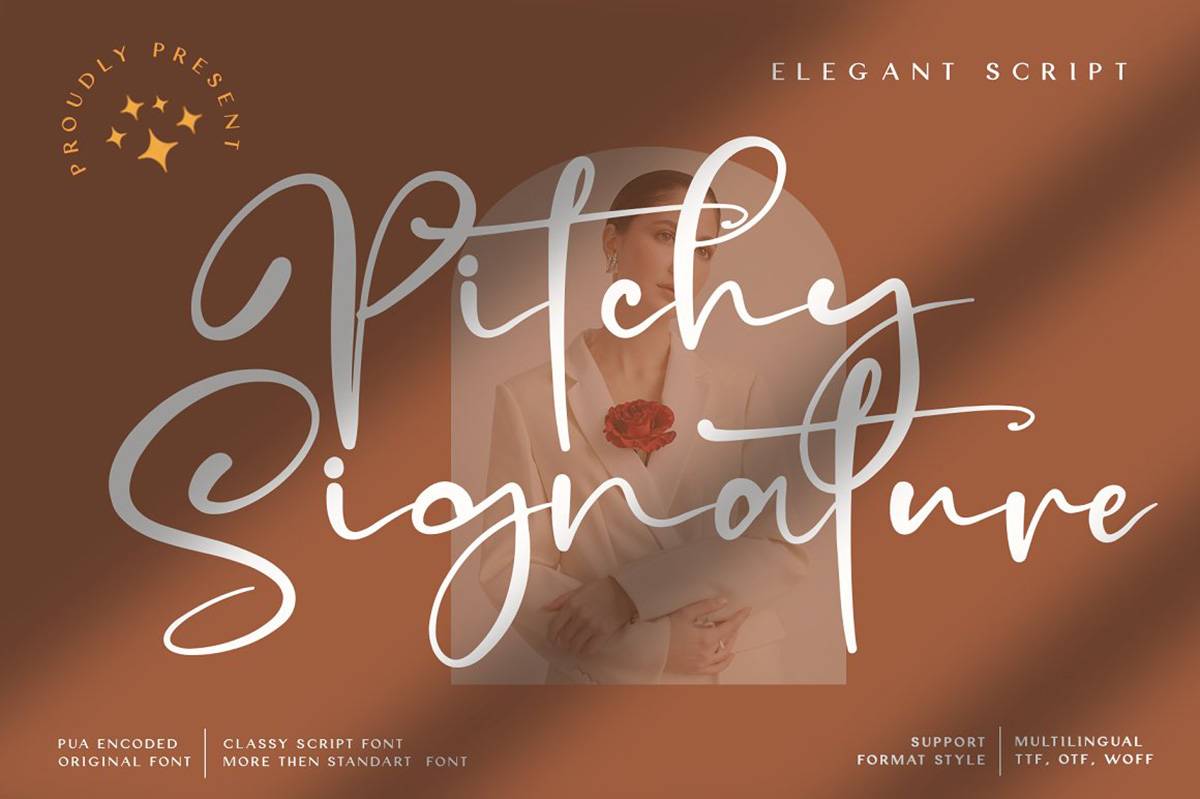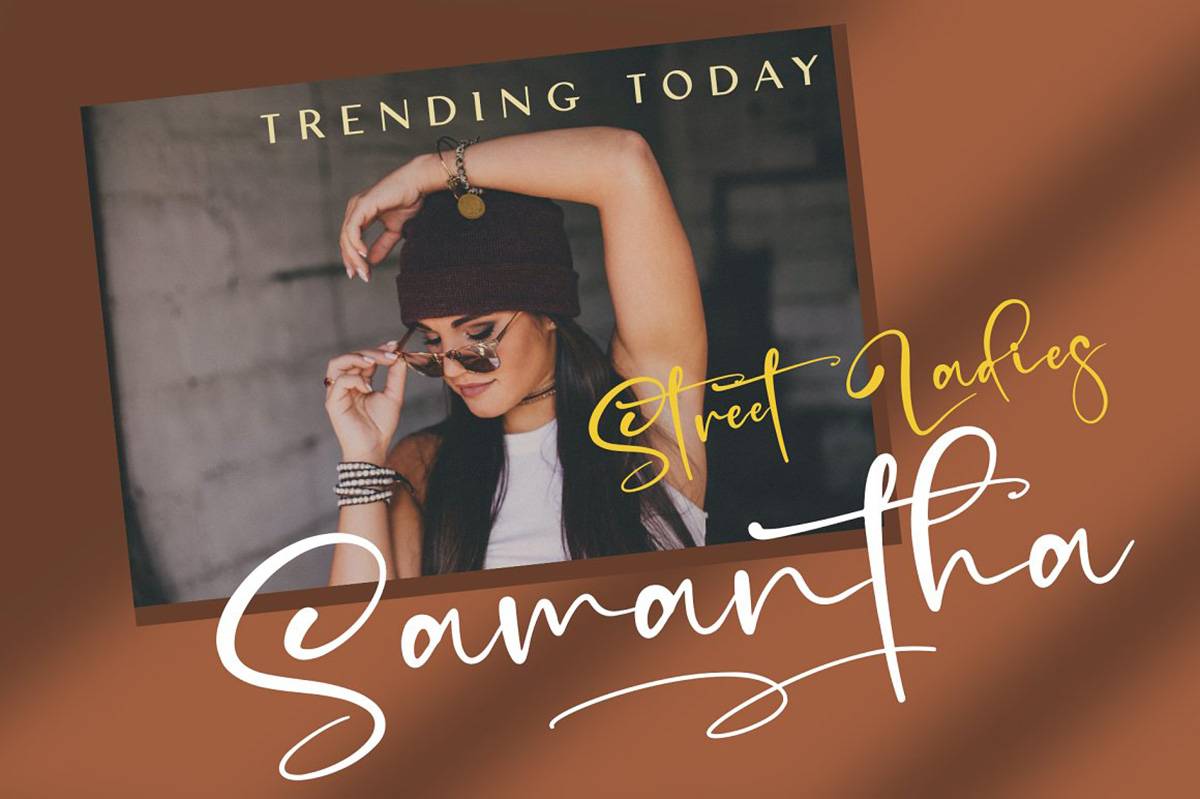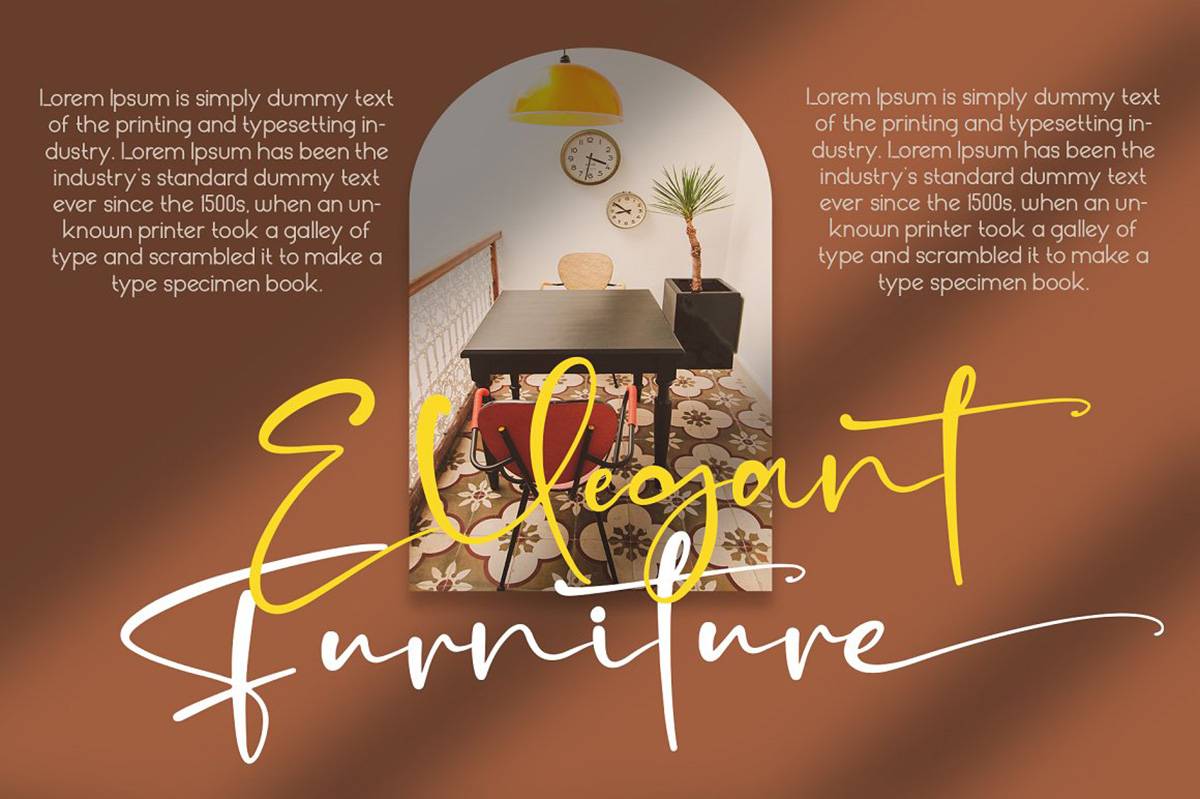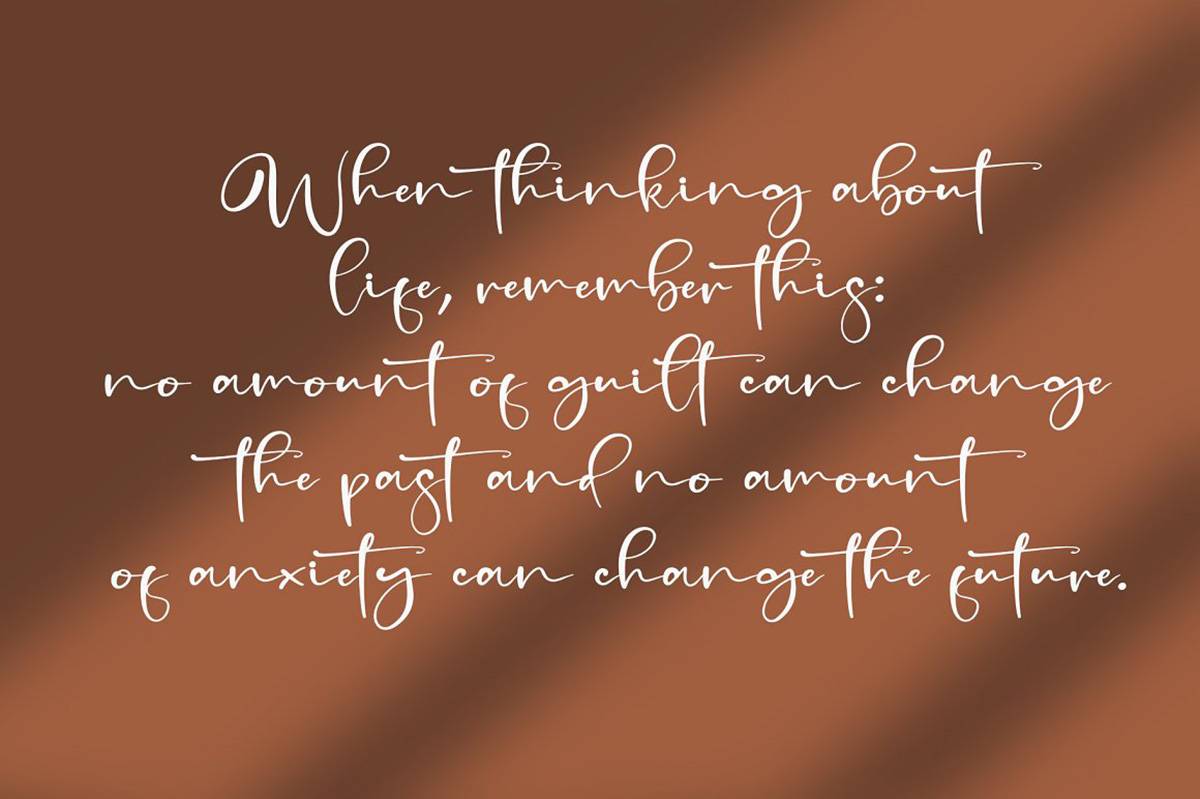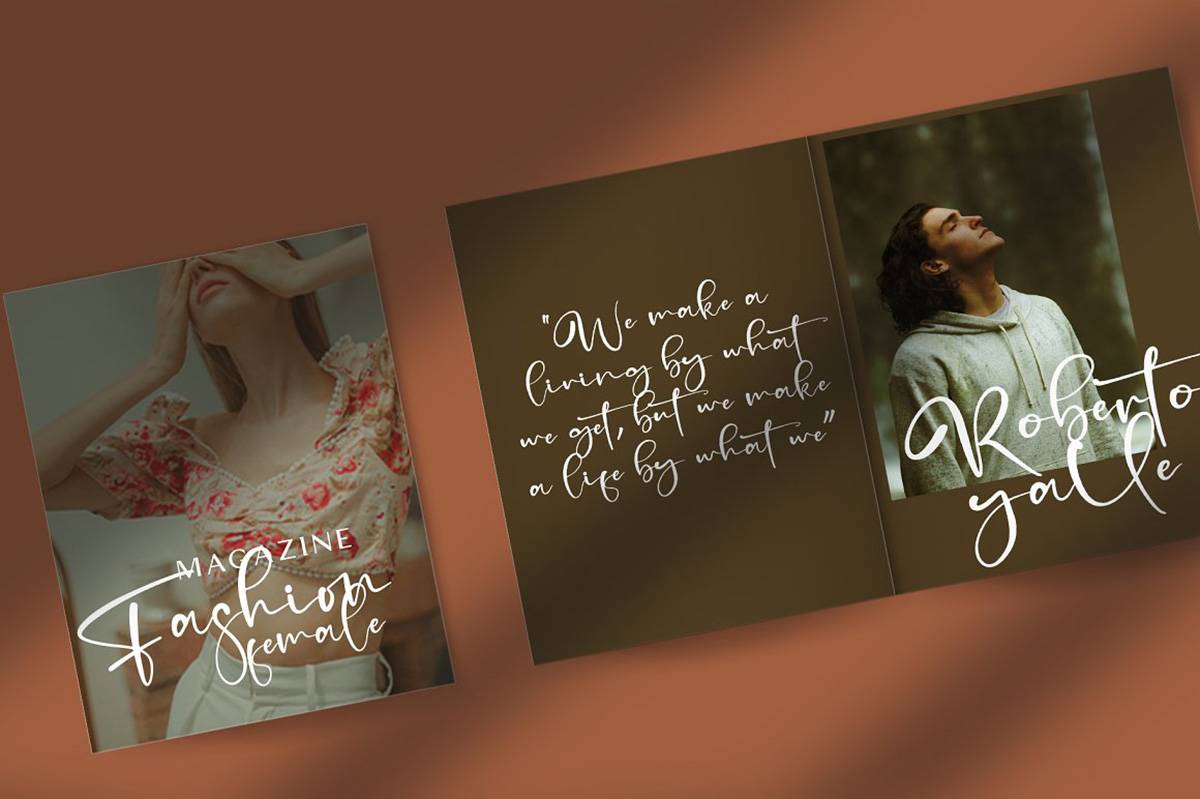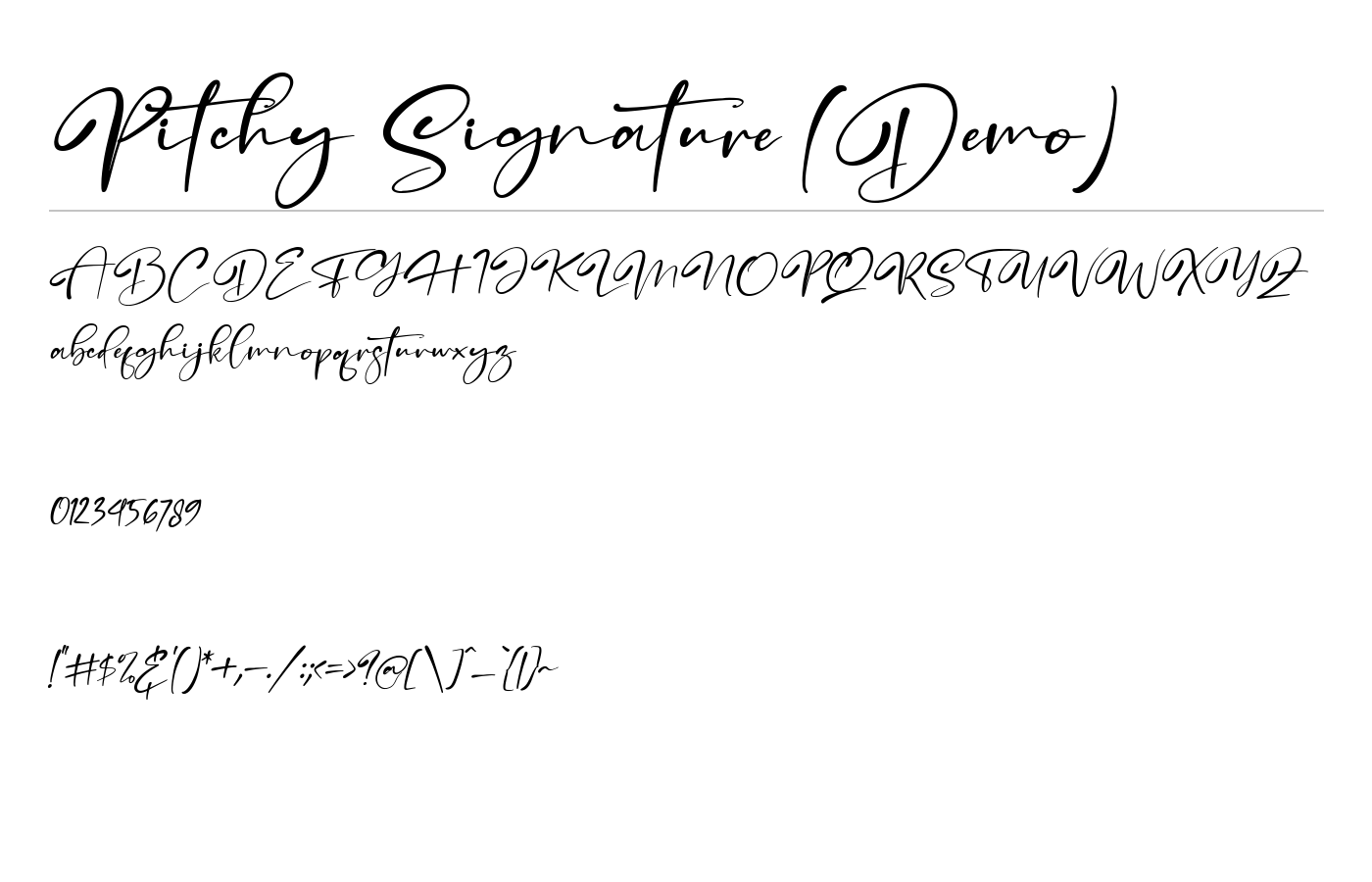
Pitchy Signature Font is an elegant and flowing script typeface that mimics natural handwriting with a modern and personal touch. Its delicate, thin strokes and high contrast give it a sophisticated, artistic feel, making it ideal for branding, invitations, and creative projects where a stylish, handwritten look is desired. This font works beautifully in headings and logos that need a chic and heartfelt expression.
Pitchy Signature Font
About Pitchy Signature Font